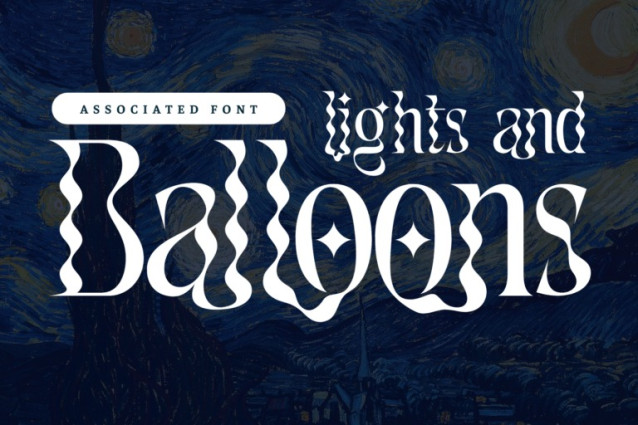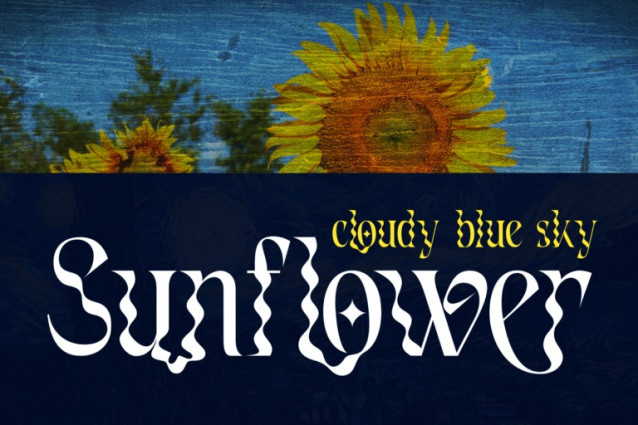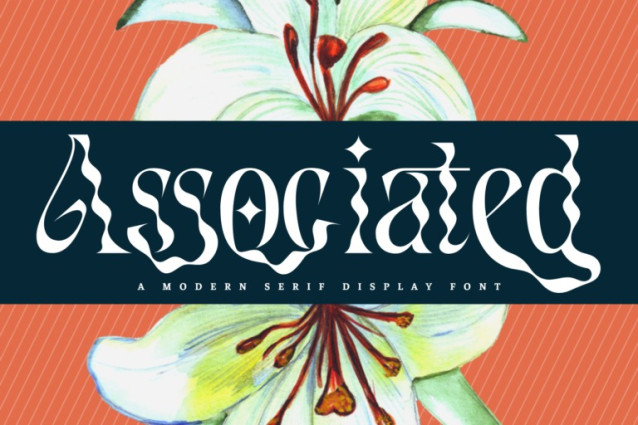
Associated Font
Associated Psychedelic Font – A Psychedelic Melting Display Typeface, a surreal and fluid display serif font inspired by psychedelic waves, ornamental lettering, and typographic illusions. With wavy contours, unexpected curves, and starry-eyed counters, this typeface melts convention into pure visual delight.
Each glyph in Associated feels alive—dancing, dripping, and expanding—making it perfect for music posters, streetwear, album art, editorial design, or branding that dares to dream.
Features:
Uppercase & Lowercase Letters
Around 100 Experimental Ligatures & Alternates
Multilingual Accented Characters
About 100 ligatures combined with Stylistic Alternates Font: